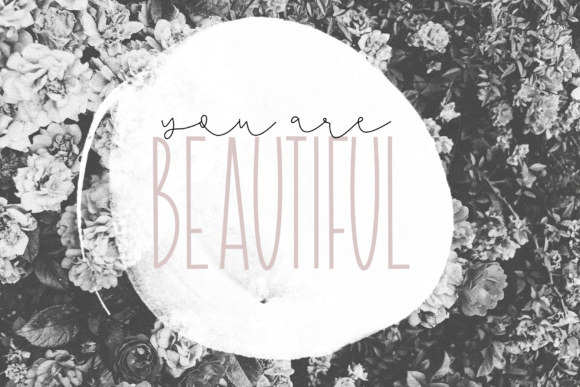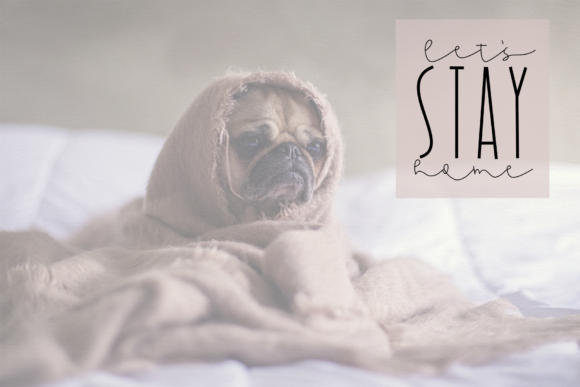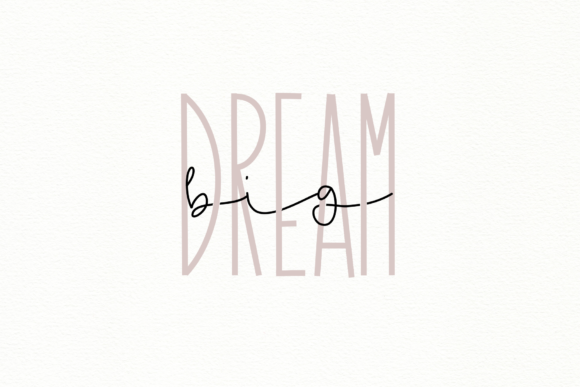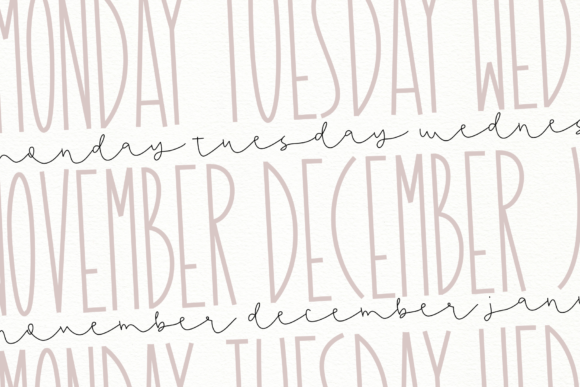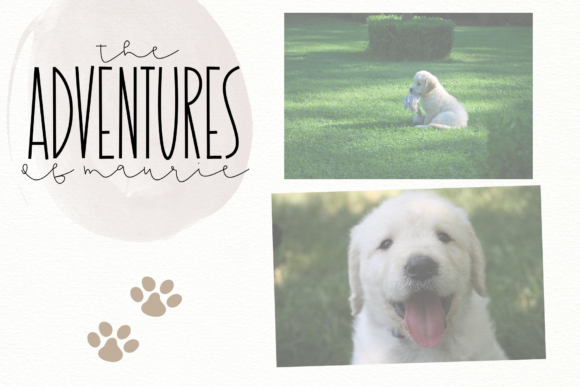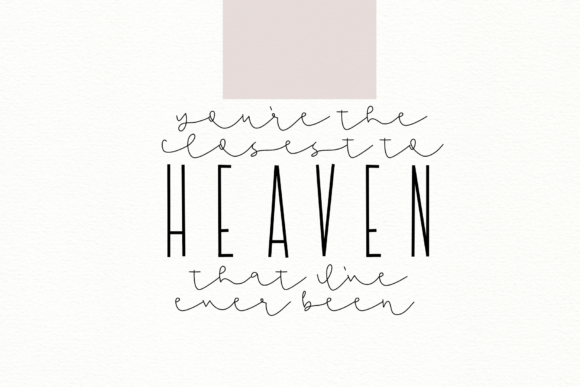
Dandy Dandelions Duo Font: A Match Made in Heaven for Designers and Crafters
Are you tired of using the same old fonts in your designs? Look no further! The Dandy Dandelions Duo Font is here to revolutionize your creative projects. This dynamic duo is a match made in heaven, combining the authenticity of Dandy with the unique style of Dandelions. The result is a charming and organic feel that will elevate your designs to the next level.
The Perfect Pairing: Dandy and Dandelions
So, what makes the Dandy Dandelions Duo Font so special? The answer lies in the perfect pairing of these two fonts. Dandy, with its classic and elegant feel, provides a solid foundation for your designs. Meanwhile, Dandelions brings a touch of whimsy and playfulness, adding a unique flair to your creations. When used together, these fonts create a beautiful harmony that will capture the attention of your audience.
Endless Possibilities: The Versatility of Dandy Dandelions Duo Font
One of the best things about the Dandy Dandelions Duo Font is its versatility. This font duo can be used in a wide variety of applications, from headlines to branding, and everything in between. Whether you’re working on a logo, a poster, or a website, this font combination will add a touch of charm and sophistication. The only limit is your imagination!
Why Designers and Crafters Love Dandy Dandelions Duo Font
Designers and crafters alike are raving about the Dandy Dandelions Duo Font, and for good reason. Here are just a few reasons why:
- Unique and Eye-Catching: The combination of Dandy and Dandelions creates a unique and eye-catching look that will set your designs apart from the crowd.
- Easy to Read: Both fonts are easy to read, making them perfect for body text and headlines.
- Highly Versatile: The Dandy Dandelions Duo Font can be used in a wide range of applications, from digital to print.
- Customizable: With the ability to adjust font sizes, colors, and styles, you can customize the Dandy Dandelions Duo Font to fit your design needs.
How to Use Dandy Dandelions Duo Font in Your Designs
Using the Dandy Dandelions Duo Font in your designs is easy! Here are a few tips to get you started:
- Pair Dandy with Dandelions: Use Dandy as your primary font and Dandelions as an accent font to add visual interest.
- Experiment with Font Sizes: Play around with different font sizes to create a hierarchy of text and add emphasis to important information.
- Add a Pop of Color: Use a bold color to add a pop of personality to your design and make it stand out.
Get Creative with Dandy Dandelions Duo Font
In conclusion, the Dandy Dandelions Duo Font is a game-changer for designers and crafters. With its unique pairing, versatility, and charm, this font combination is sure to elevate your designs and take them to the next level. So don’t settle for boring fonts – try the Dandy Dandelions Duo Font today and see the difference for yourself!